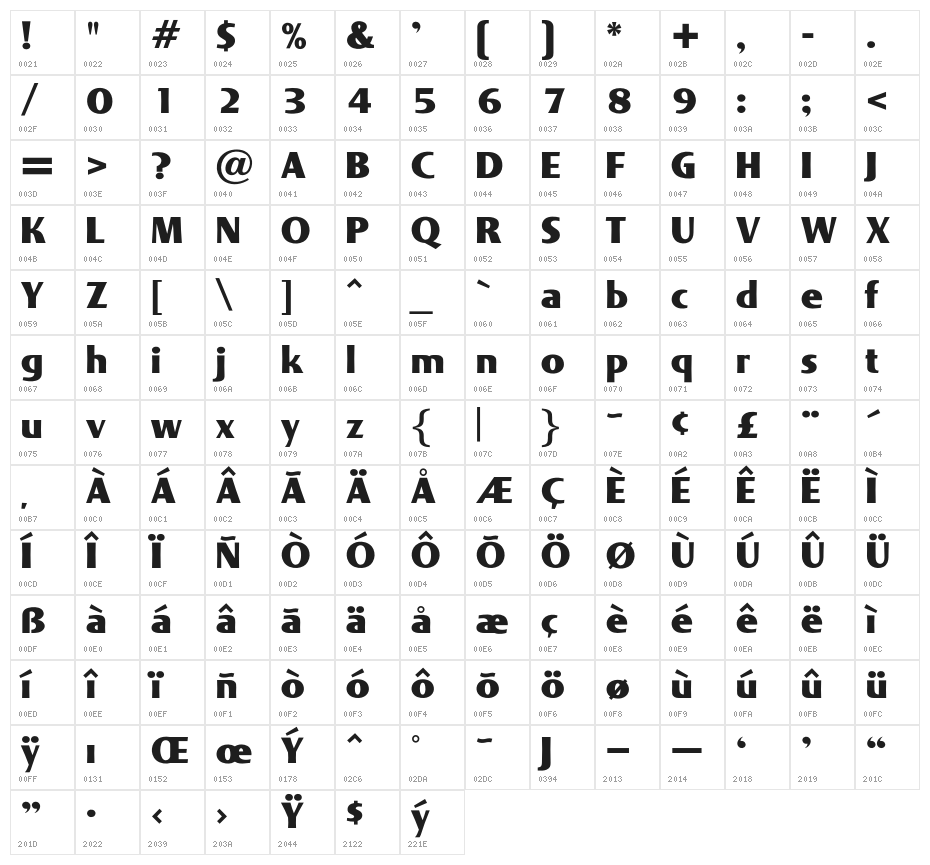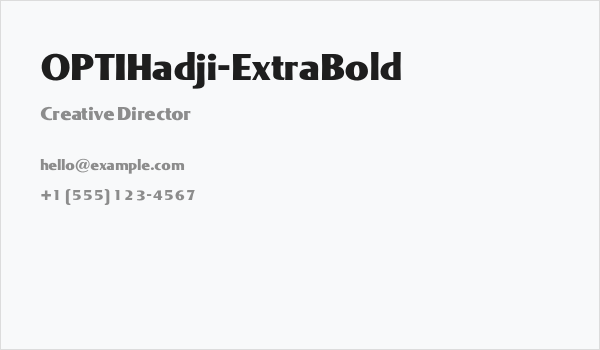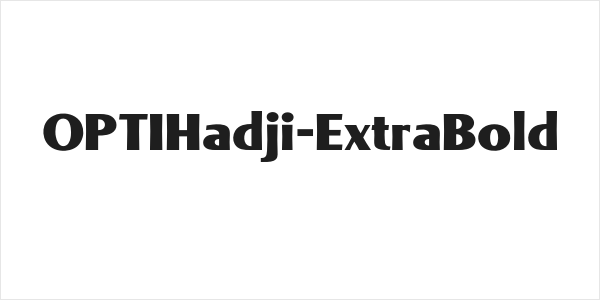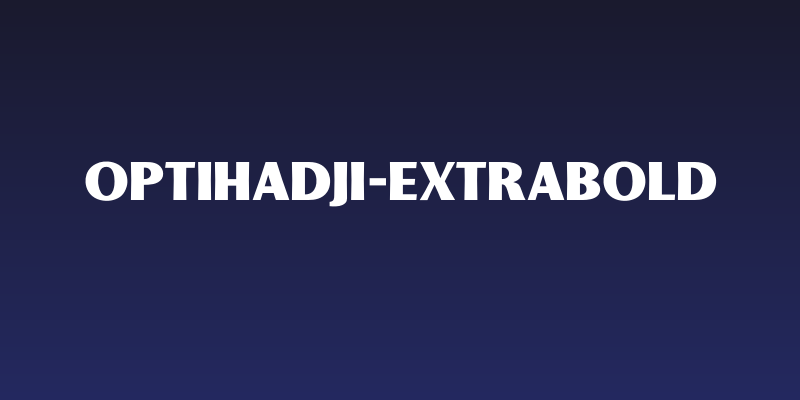
OPTIHadji-ExtraBold Font
OPTIHadji-ExtraBold Description
This font features a bold and assertive style with thick strokes and a strong presence. The uppercase letters are robust and commanding, while the lowercase letters maintain a consistent weight, providing a harmonious balance. The numerals are clear and easily distinguishable, making them suitable for various applications. The special characters are well-integrated, adding versatility to the font's use. Its overall design is modern and impactful, making it ideal for projects that require a strong visual statement.
| Proposed Projects | Ideal for branding, advertising, headlines, and any project requiring a bold visual impact. |